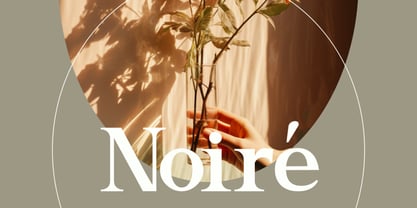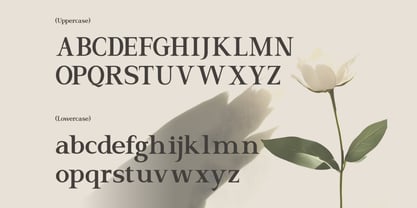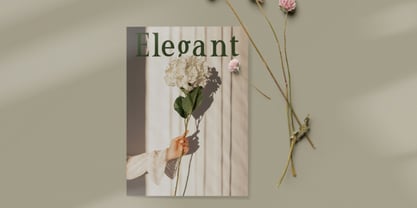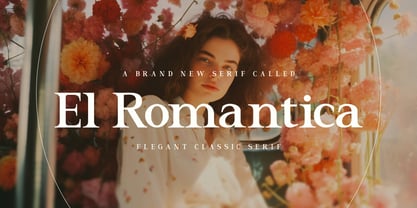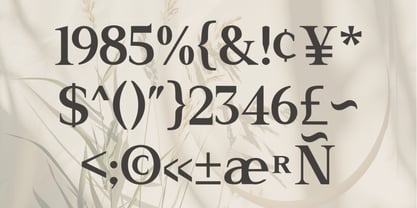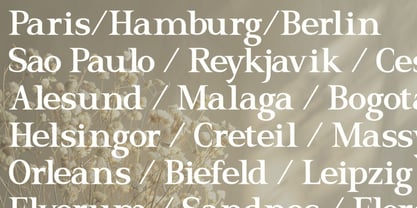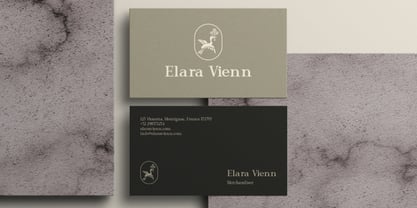
El Romantica
El Romantica is a timeless serif font crafted to evoke elegance, grace, and romantic sophistication. With its classic high-contrast strokes, delicate curves, and refined details, this typeface is ideal for designs that require a luxurious and soft aesthetic. Included in this font family are uppercase and lowercase characters, punctuation, symbols, numerals, and multilingual support. El Romantica is a highly versatile serif font with a romantic and timeless character, perfect for upscale branding, elegant wedding stationery, and high-fashion magazines. Its refined presence makes it ideal for beauty and lifestyle packaging, editorials, personal branding.